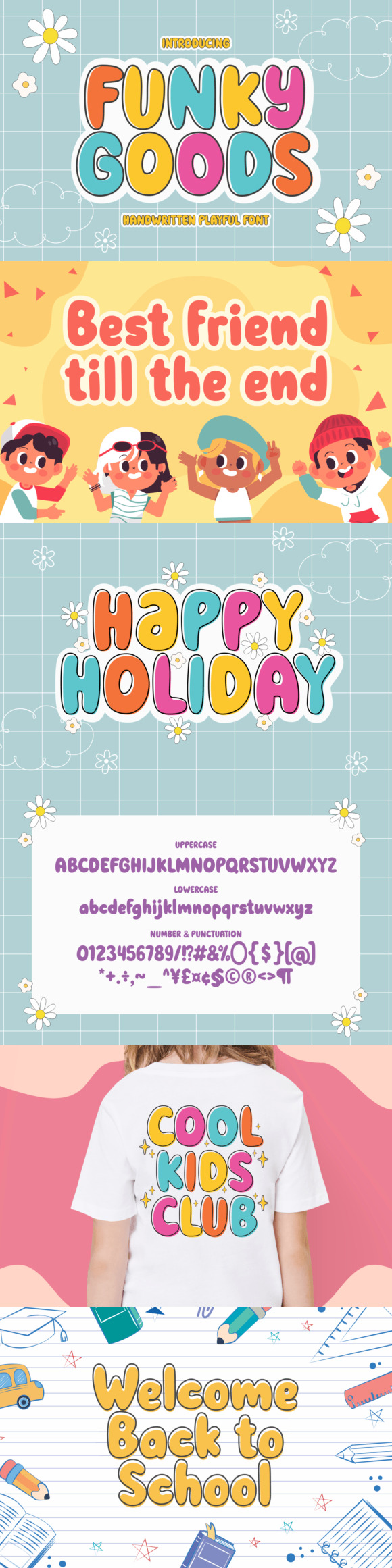
Introducing Funky Goods, a playful handwritten font that adds a fun vibe to your designs. With its quirky style and whimsical flair, Funky Goods is perfect for adding a touch of personality to your projects. Whether you’re creating greeting cards, posters, or social media graphics, this font will bring a smile to your audience’s face. Let Funky Goods inject some joy and creativity into your typography!